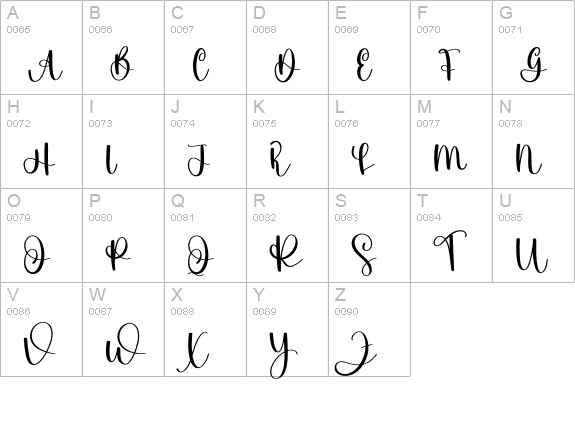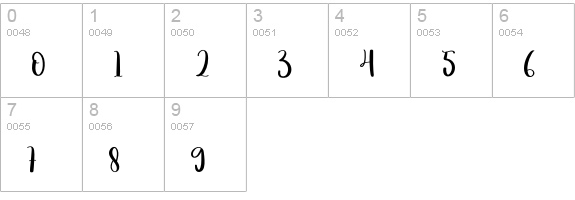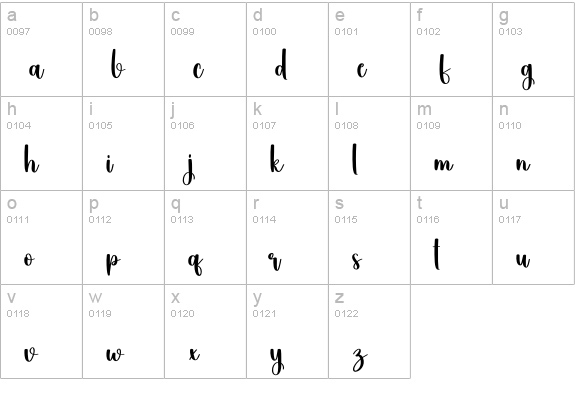
Vacattion is a free for personal use font in the Script > Handwritten category, designed by scratchones. It has been downloaded 76 times and is available for Windows, Mac and Linux.
Vacattion font is a playful and whimsical typeface that is perfect for adding a touch of fun to your designs. With its rounded edges and unique letter shapes, Vacattion exudes a carefree and laid-back vibe that is sure to make your text pop. This font is ideal for a variety of design projects, from posters and flyers to social media graphics and branding materials.